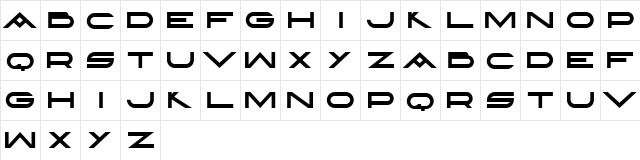
Layered Letters Regular
Regular · Vladimir Nikolic Vladimir Nikolic ·
Design Context for Layered Letters Typeface
Layered Letters offers clean, dependable letterforms without strong stylistic allegiance, making it a practical choice for designers who need flexibility.